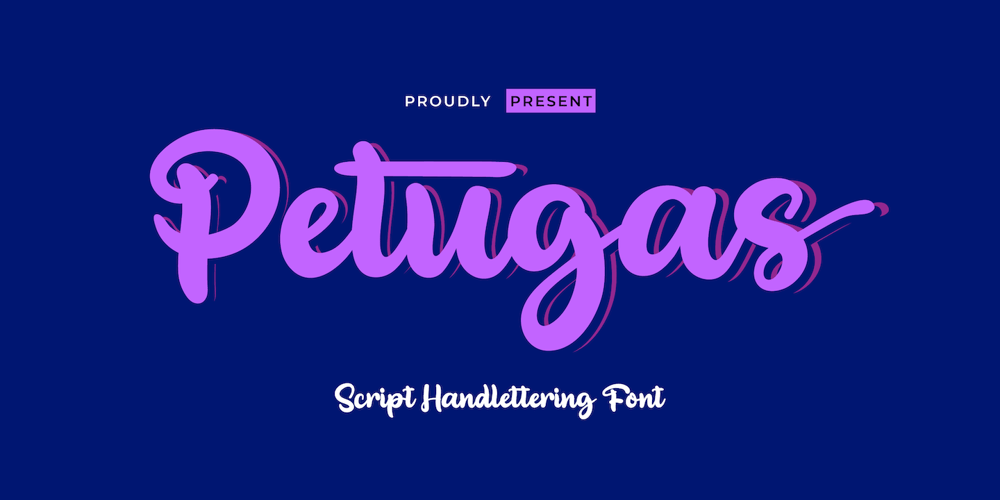
Petugas
Petugas font
Petugas Font Family was designed by Rozikan and published by Twinletter. Petugas contains 1 styles and family package options. Petugas is our newest font.This font is written in deep and dramatic handwriting. Each letter has a unique and beautiful character to be used as a title, word or sentence, which looks good and beautiful in every display design you make.Not limited to that, the bold calligraphy font is designed to keep paying attention to the beauty of each letter, there are alternate options for the letters which are certainly easy for you to access, so you can automatically customize the letters you want to enhance the visual appearance of your design project.